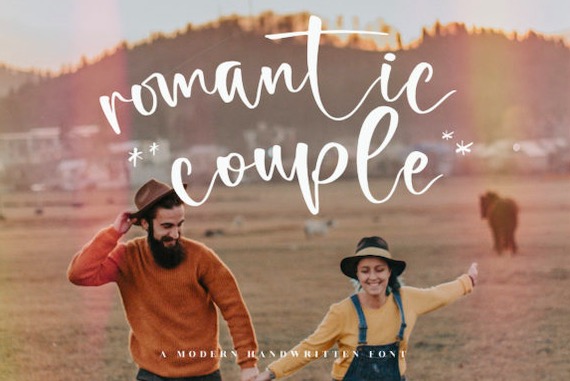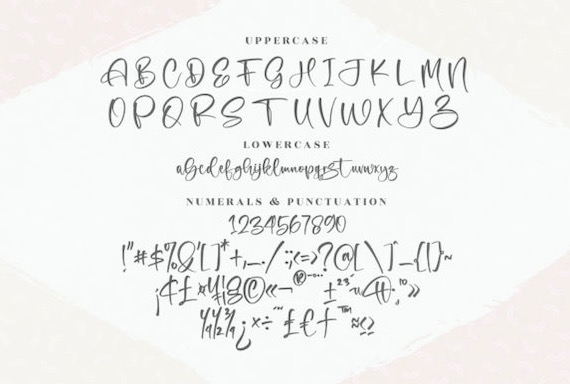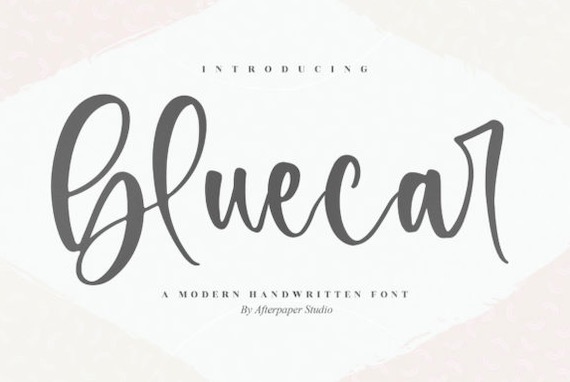
Bluecar Font is a timeless and lovely handwritten script typeface. It is the best choice for creating eye-catching logos, branding, and quotes. This font is PUA encoded which means you can access all of the glyphs and swashes with ease!
Bluecar Handwritten Font